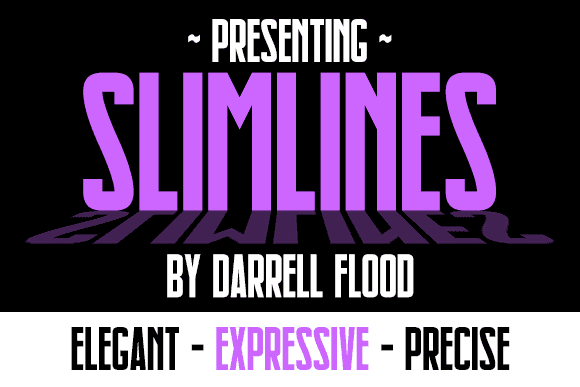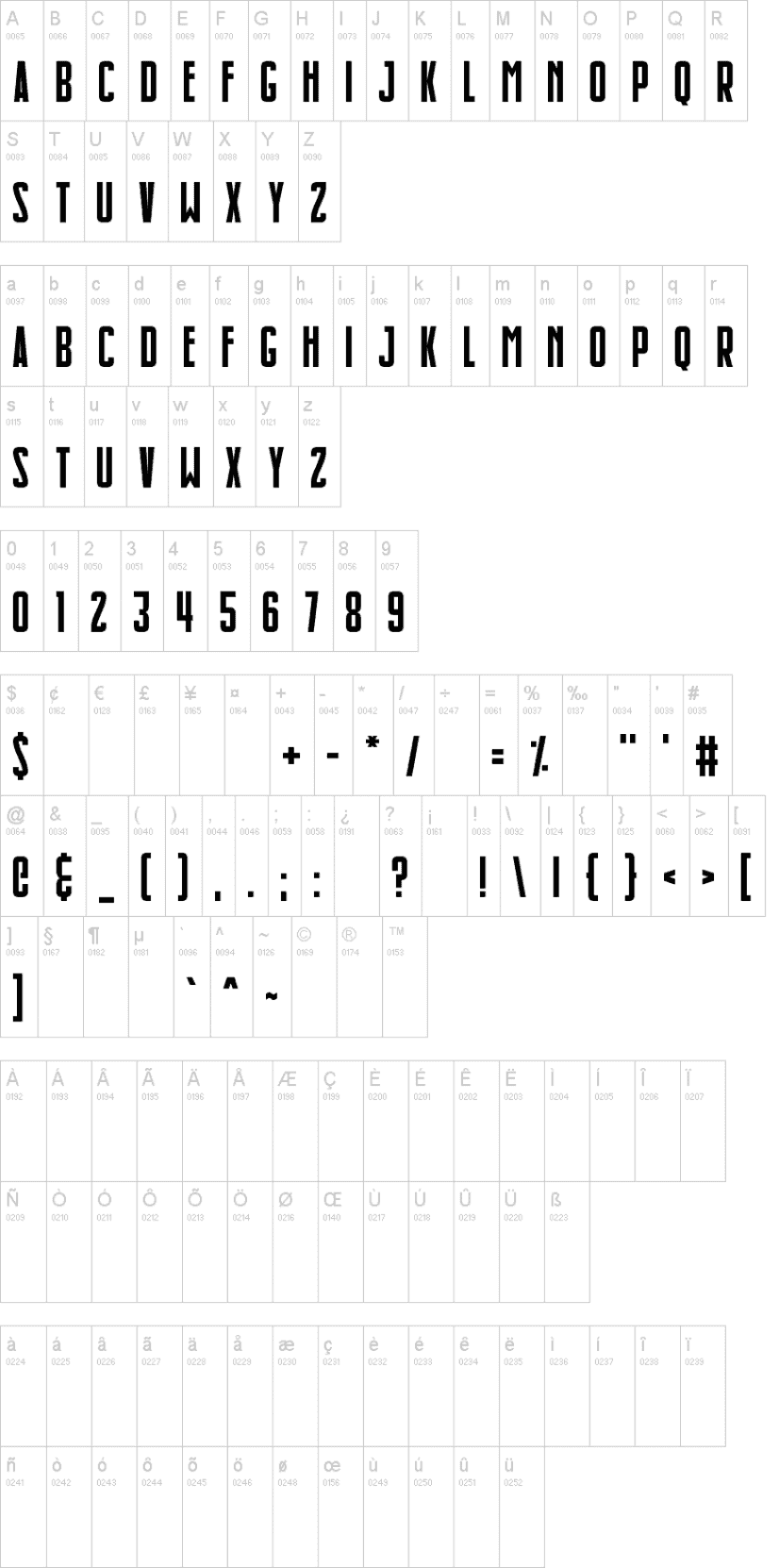
Slimlines by Darrell Flood is a beautiful and elegant Sans serif font you can get for personal and free use. This version contains both the upper case letters and also some of the special symbols.